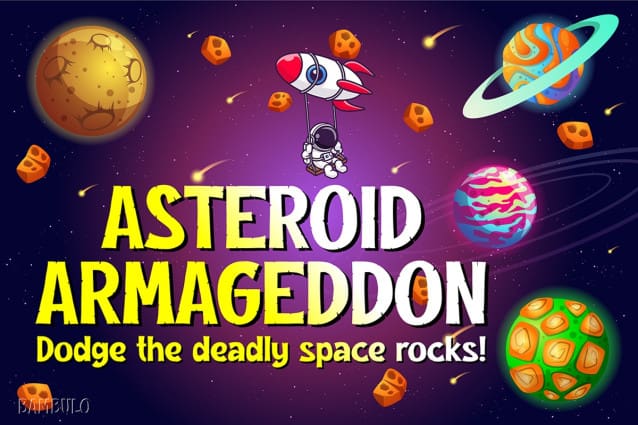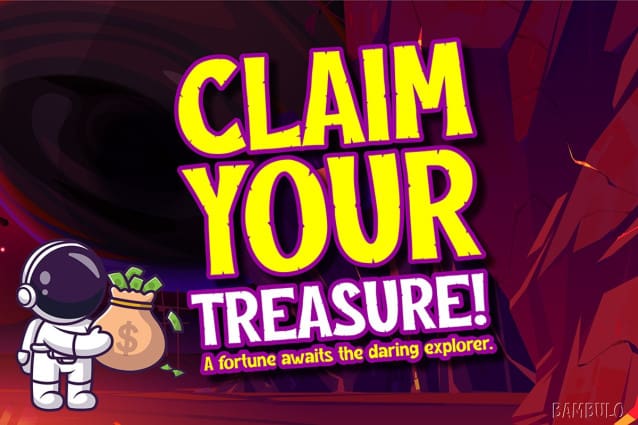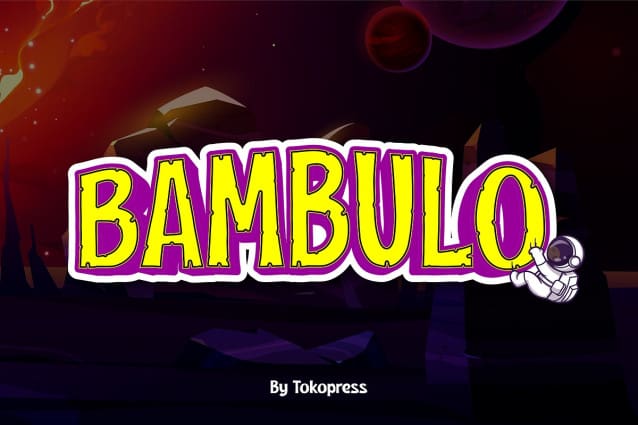
Bambulo Display Font
Bambulo Display Font, the font designed to ignite the spirit of adventure and gaming! With its dynamic and bold letterforms, Bambulo brings an energetic vibe perfect for your creative projects.
Ideal for game titles, event posters, or social media content that demands visual impact. Embark on an unforgettable journey with Bambulo and let your imagination explore!